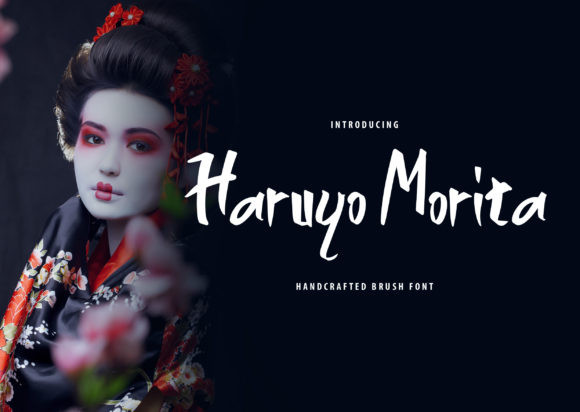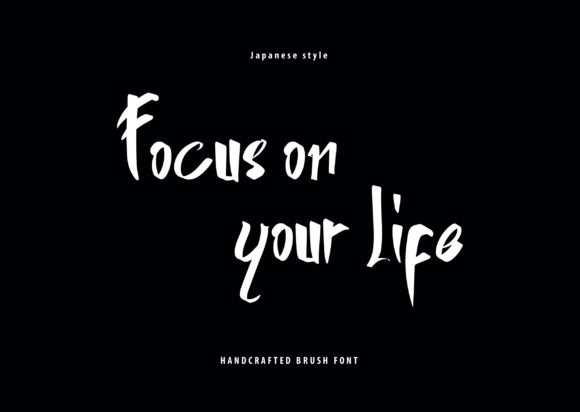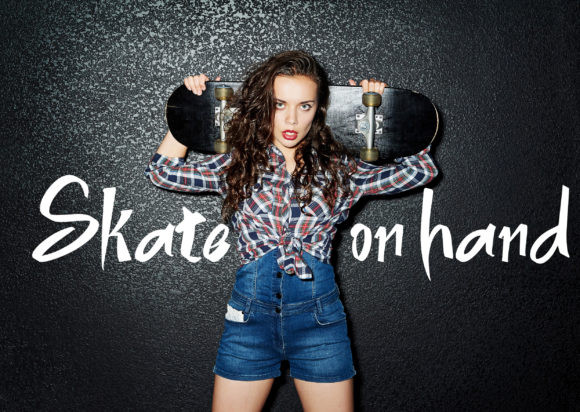
Haruyo Morita Font
Haruyo Morita is a Japanese-style font script with a natural hand-lettering brush. This handcrafted font will take any Eastern-themed design project to the next level.